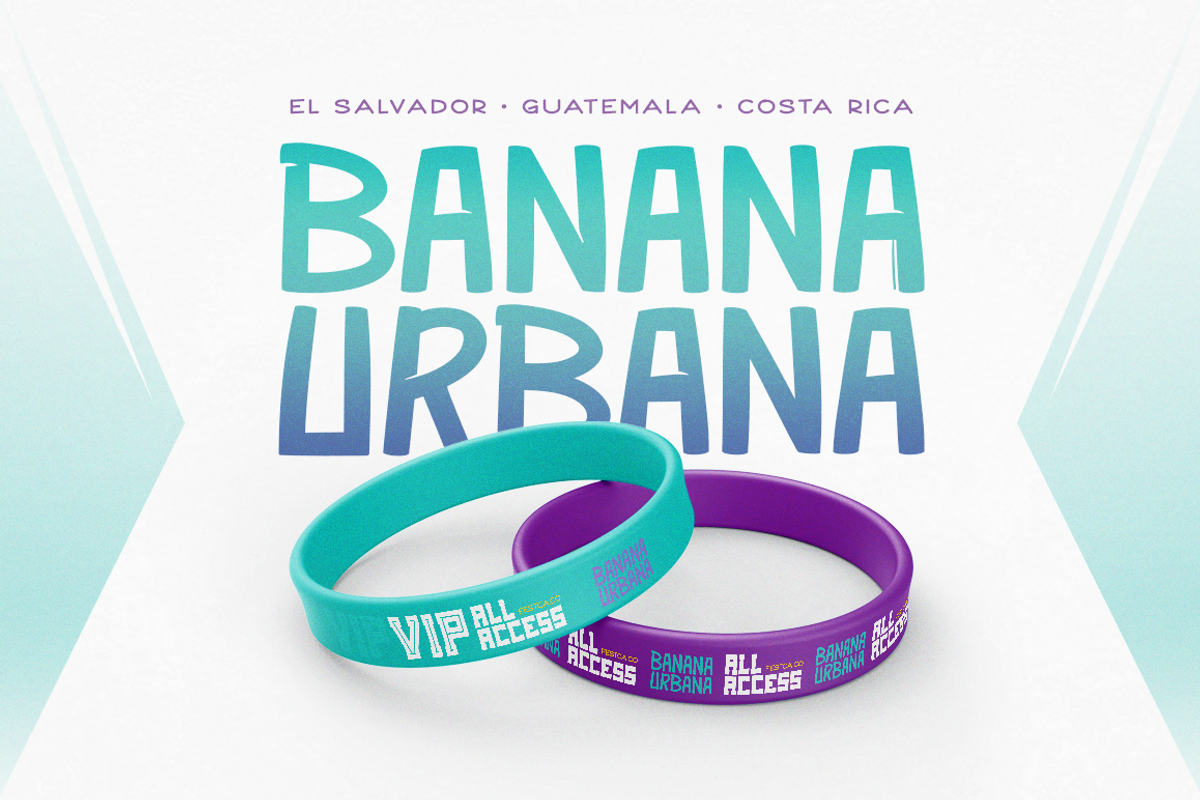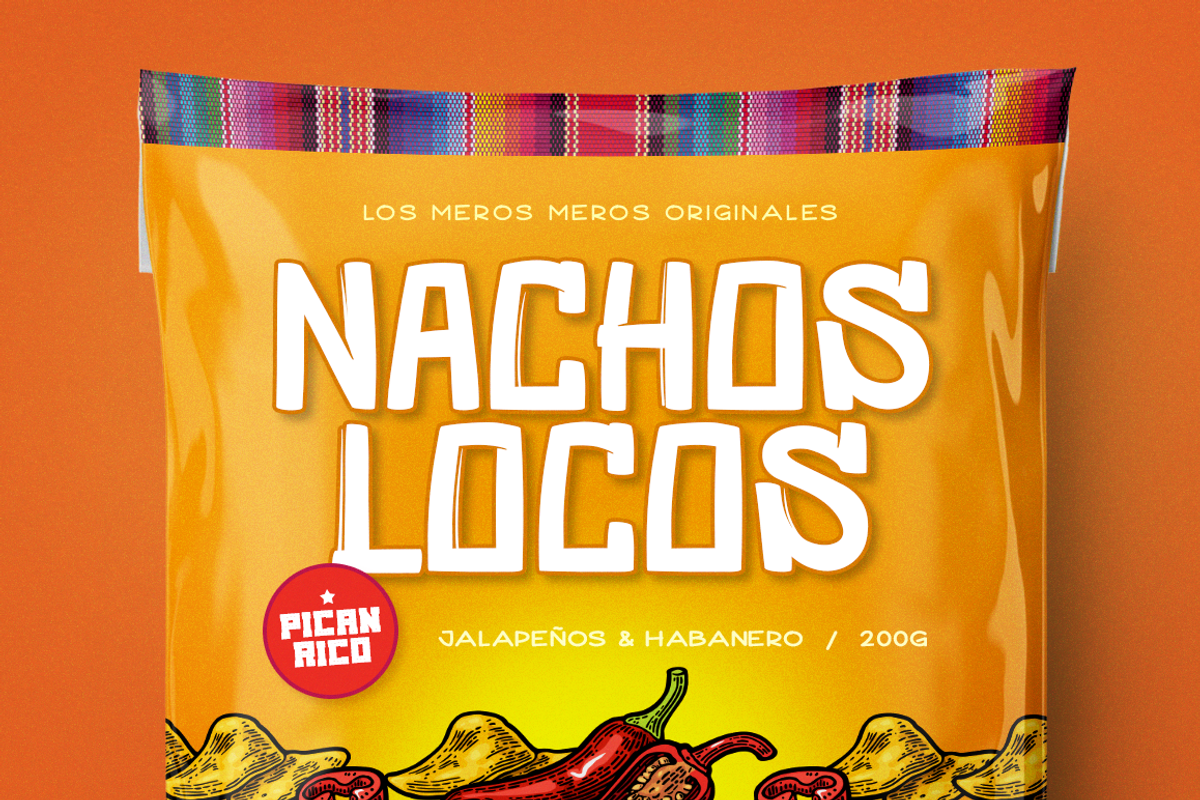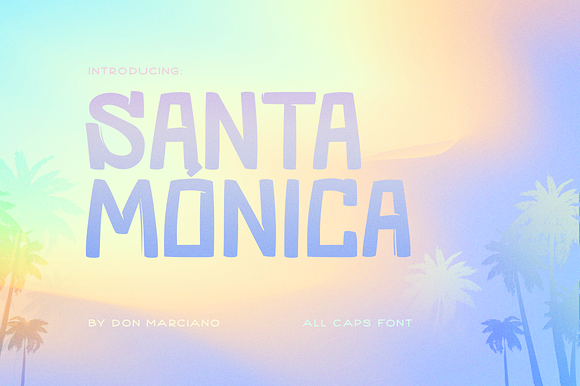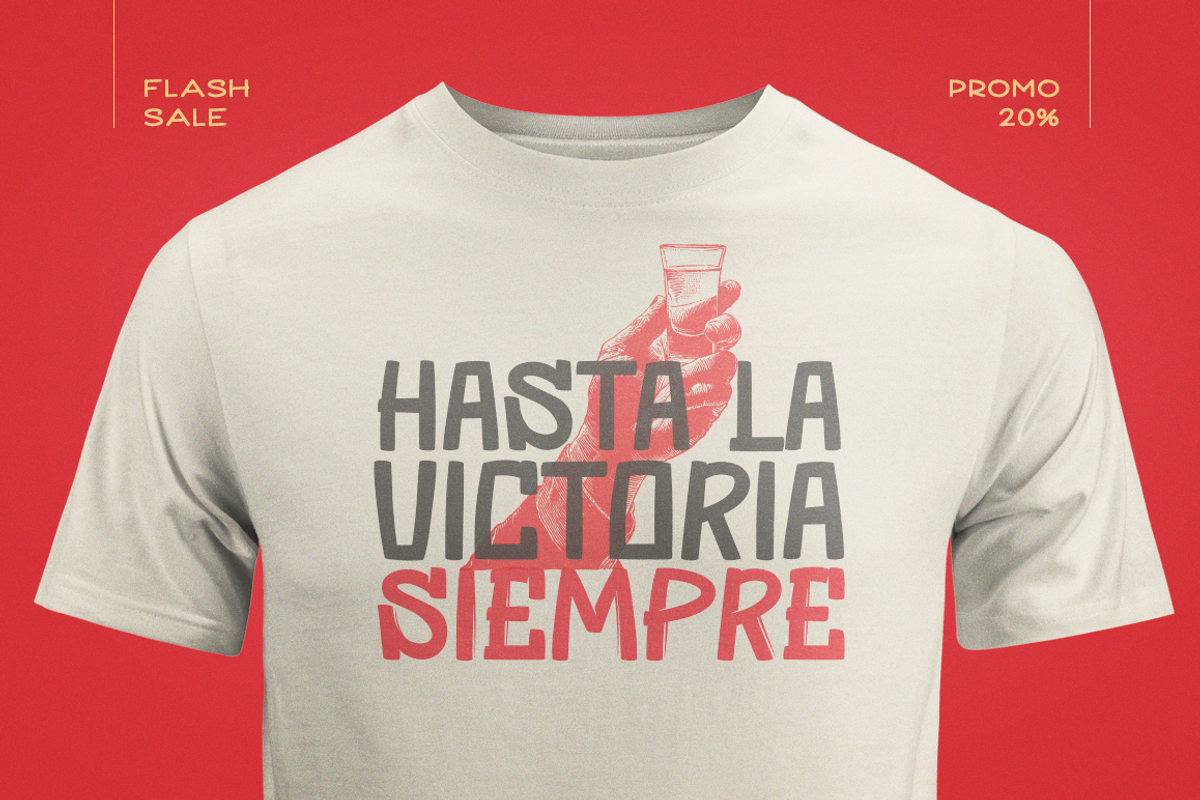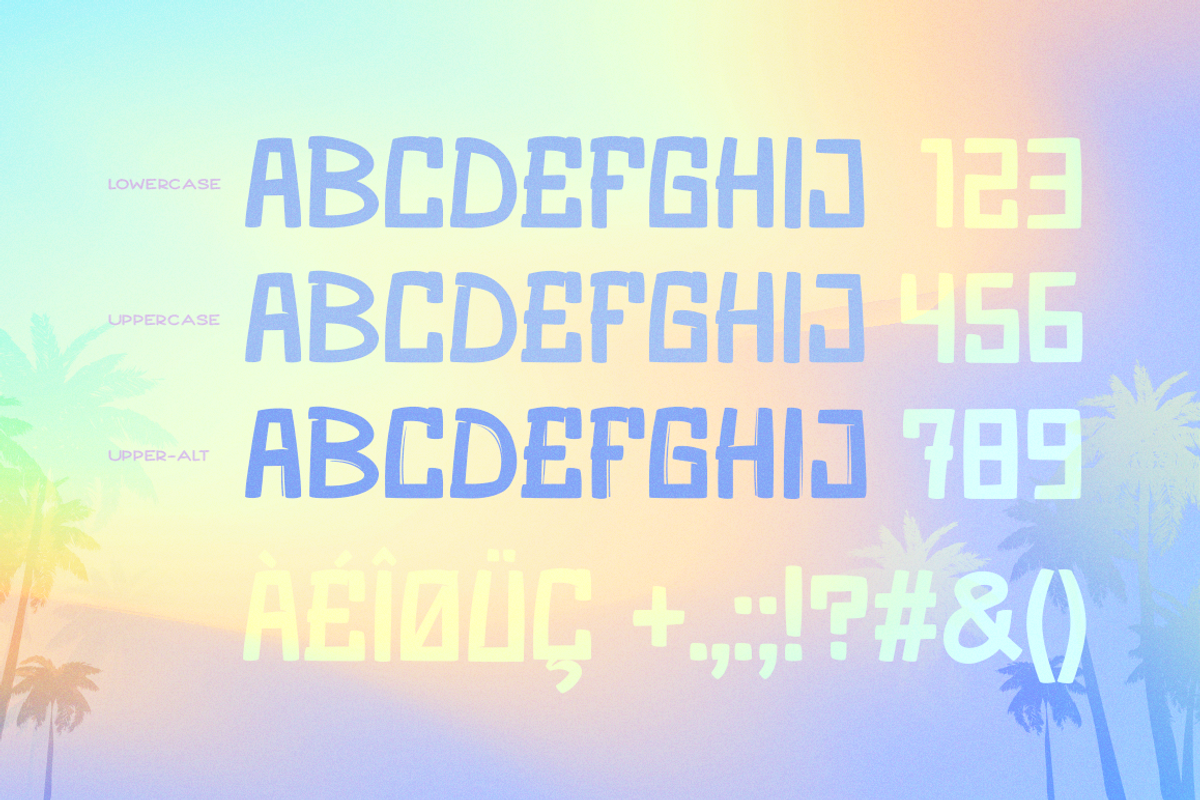
Santa Monica Cool Font
Santa Monica is a cool chill style font, design for a unique series of beach-related inspired concepts by a local surf shop, the goal was to reach a global look for a local brand design; with clean and alternate lines, comes the coolest font of the block.